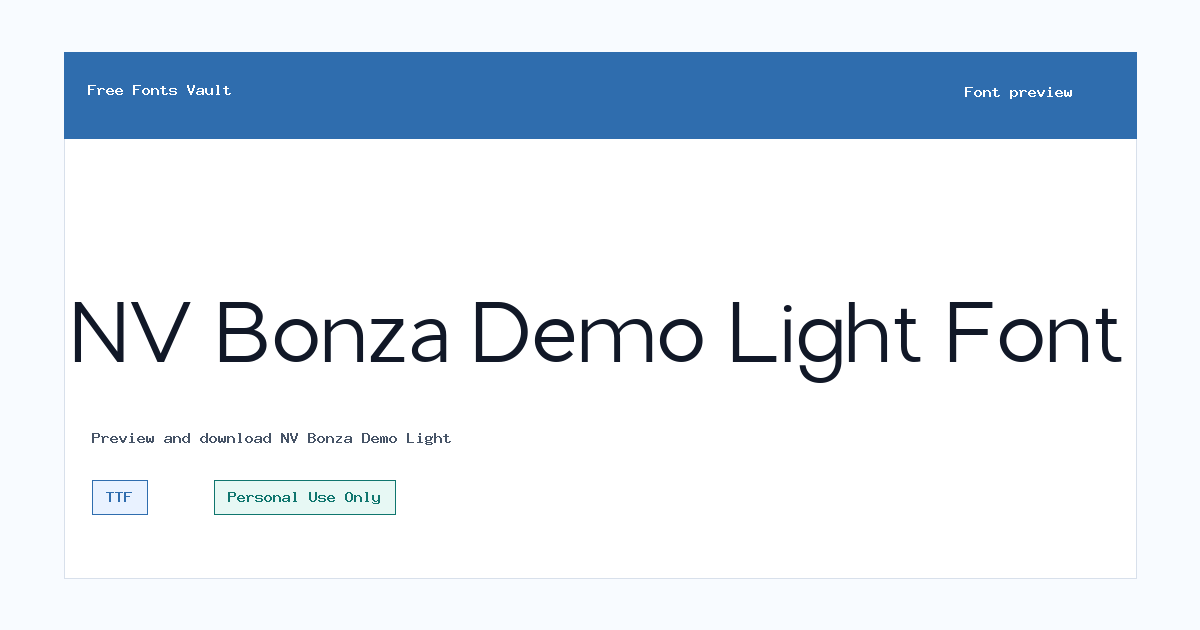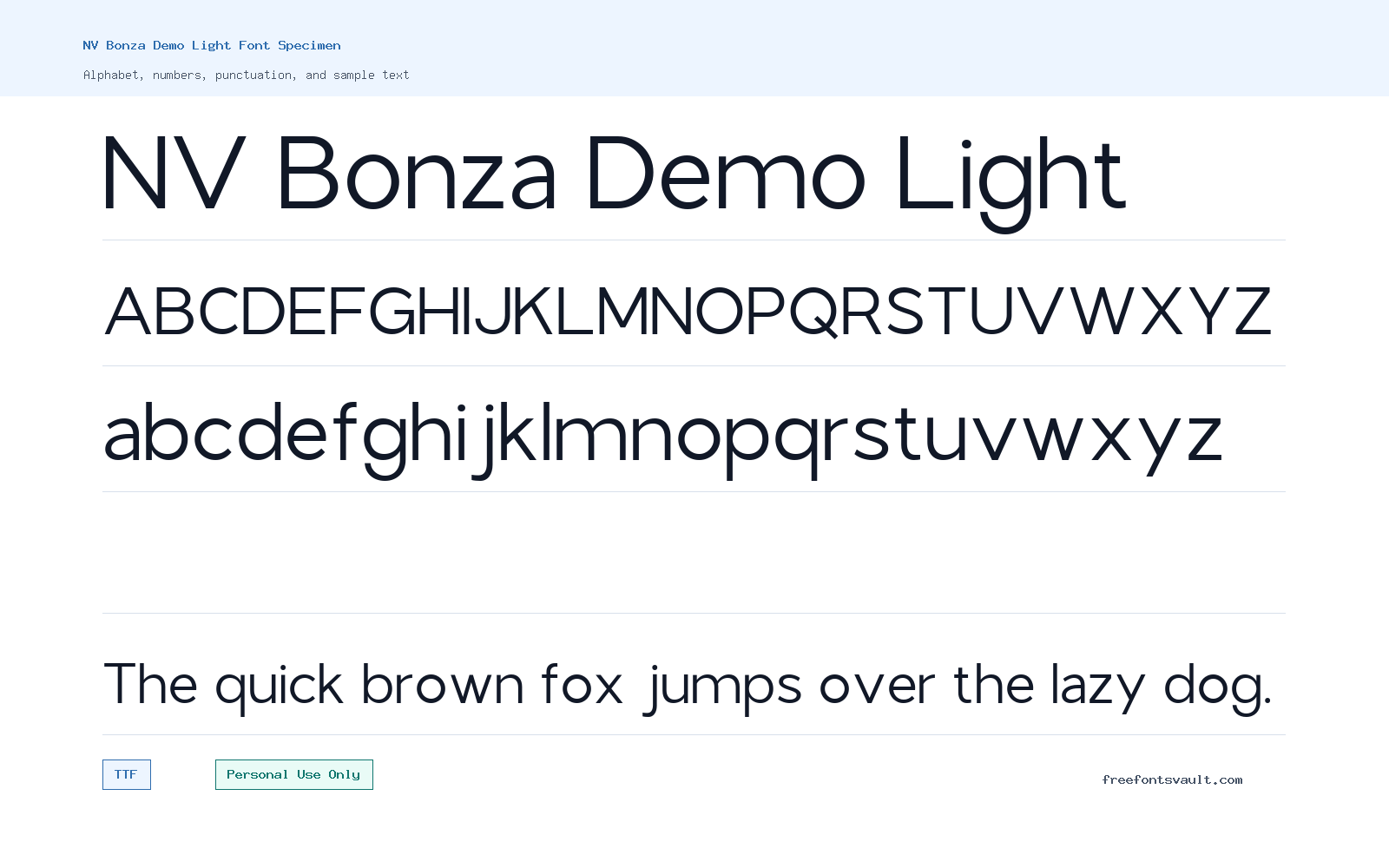
NV Bonza Demo Light
- Designer Almer Muhammad Hafidz
- Foundry NovaraType
NV Bonza Demo Light font.
NV Bonza Demo Light is a light-weight sans serif font from the NV Bonza family, built for clean text previews and simple design mockups. Its thin, airy weight makes it useful when you want a softer headline style without making the layout feel heavy.
About NV Bonza Demo Light
NV Bonza Demo Light has a restrained sans serif look with a 300 weight, giving it a lighter presence than regular or bold display fonts. That makes it a good option for testing elegant headings, short labels, portfolio mockups, social graphics, and title treatments where spacing and clarity matter. Because this download is a demo light style, it is best treated as a preview font for evaluating the family’s feel rather than as a complete professional font package.
- Light 300-weight sans serif style for clean headings, short text, and layout previews.
- Personal design mockups, mood boards, portfolio concepts, and social media draft graphics.
- Large titles, simple branding tests, invitation-style layouts, and short interface labels.
What kind of designs suit NV Bonza Demo Light?
It works best for short, clean text such as titles, simple posters, personal branding drafts, social graphics, and visual mockups. It may not be the best choice for long body text because light weights can become harder to read at small sizes.
Who designed NV Bonza Demo Light?
The designer is listed as Almer Muhammad Hafidz, and the foundry is listed as NovaraType.